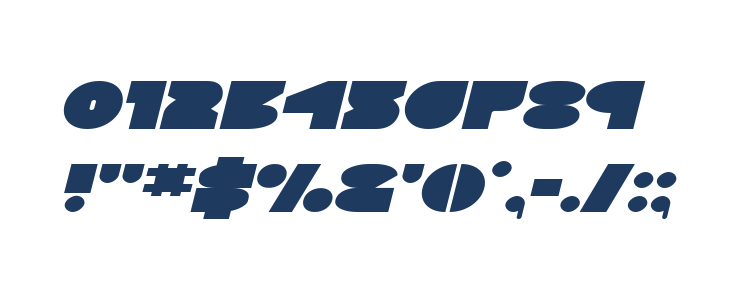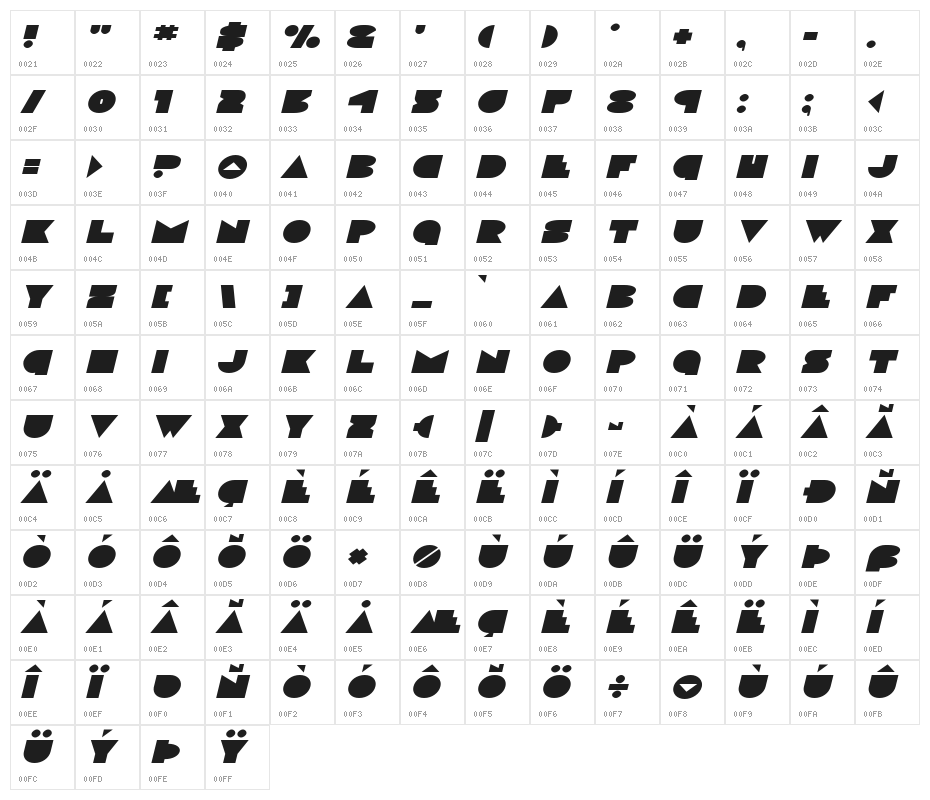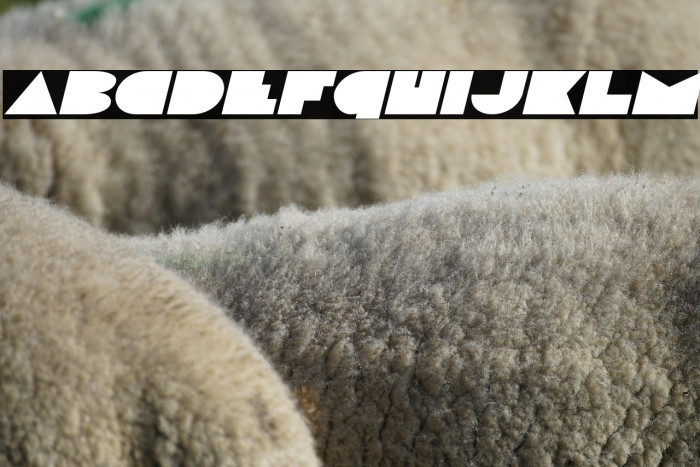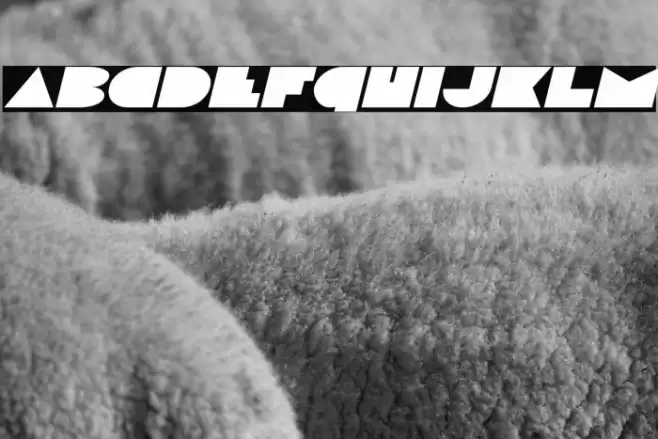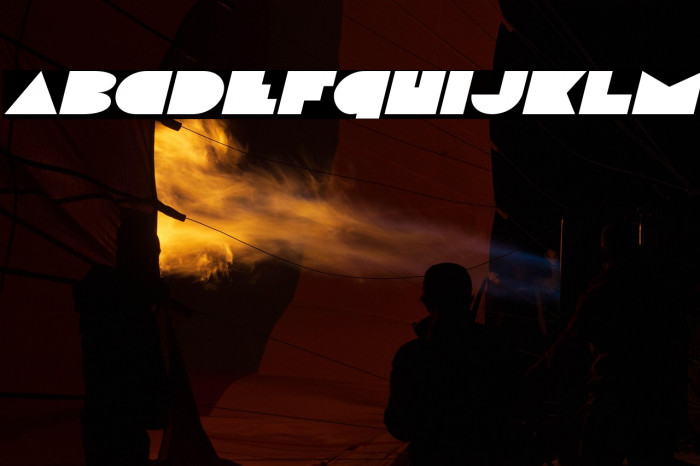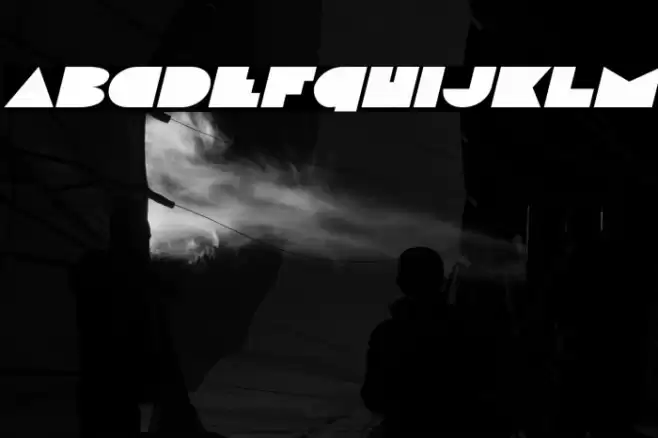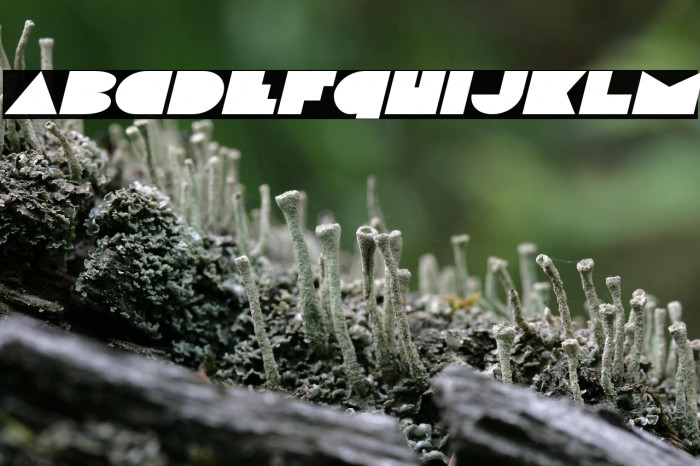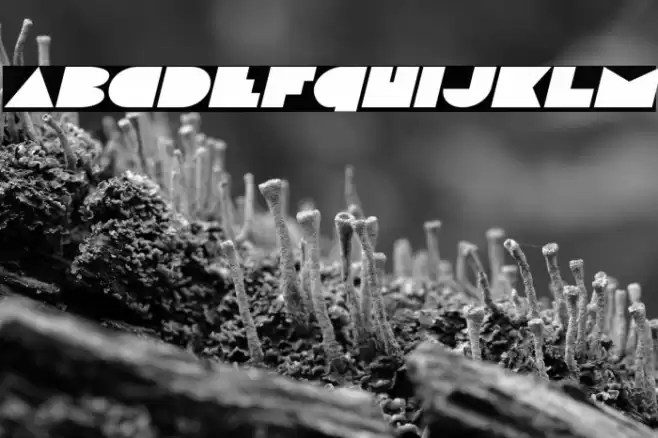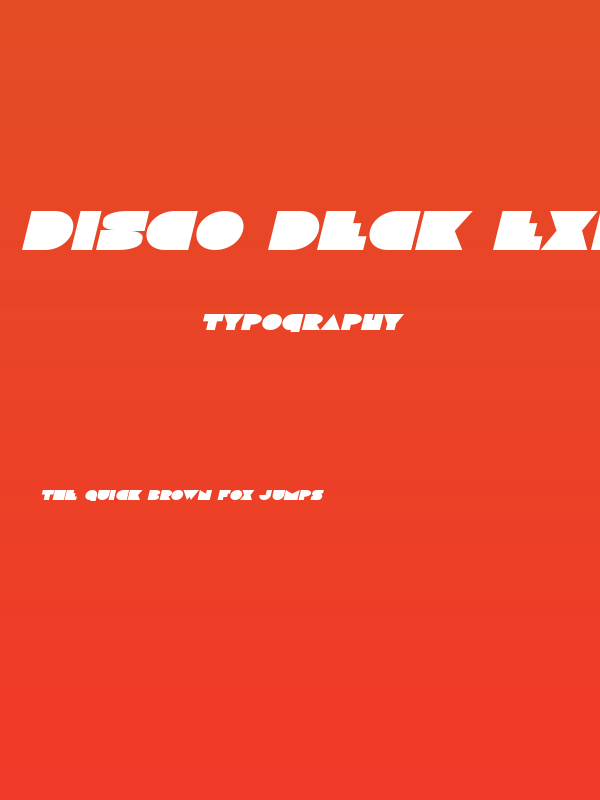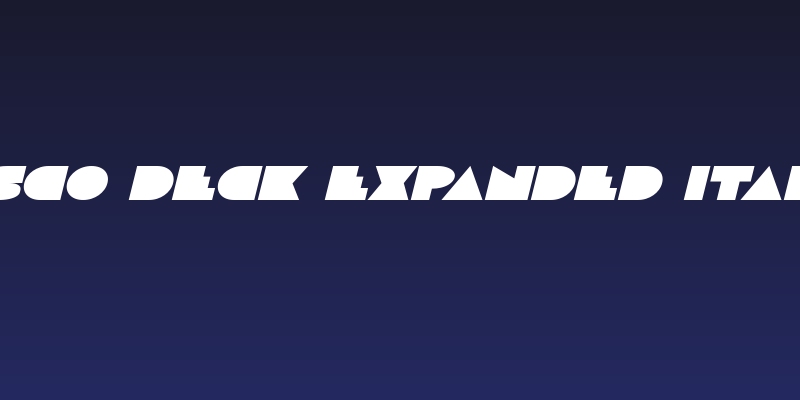
Disco Deck Expanded Italic Font
Disco Deck Expanded Italic Description
This font features a bold and dynamic style with a distinct geometric flair. The characters are heavily stylized with sharp angles and a sense of movement, giving it a futuristic and energetic appearance. The expanded width and italic slant enhance its unique look, making it stand out in any design. The uppercase and lowercase letters maintain a consistent style, while the numbers and special characters complement the overall aesthetic. This font is perfect for projects that require a bold statement and a modern touch.
| Proposed Projects | Ideal for music album covers, event posters, branding for tech companies, and any project needing a bold, modern touch. |